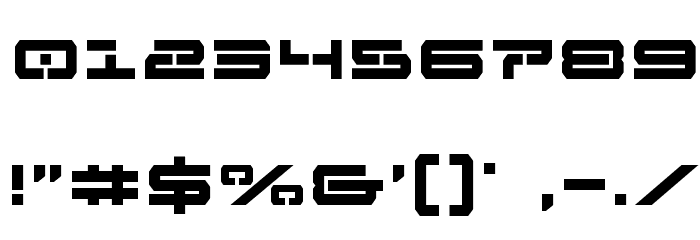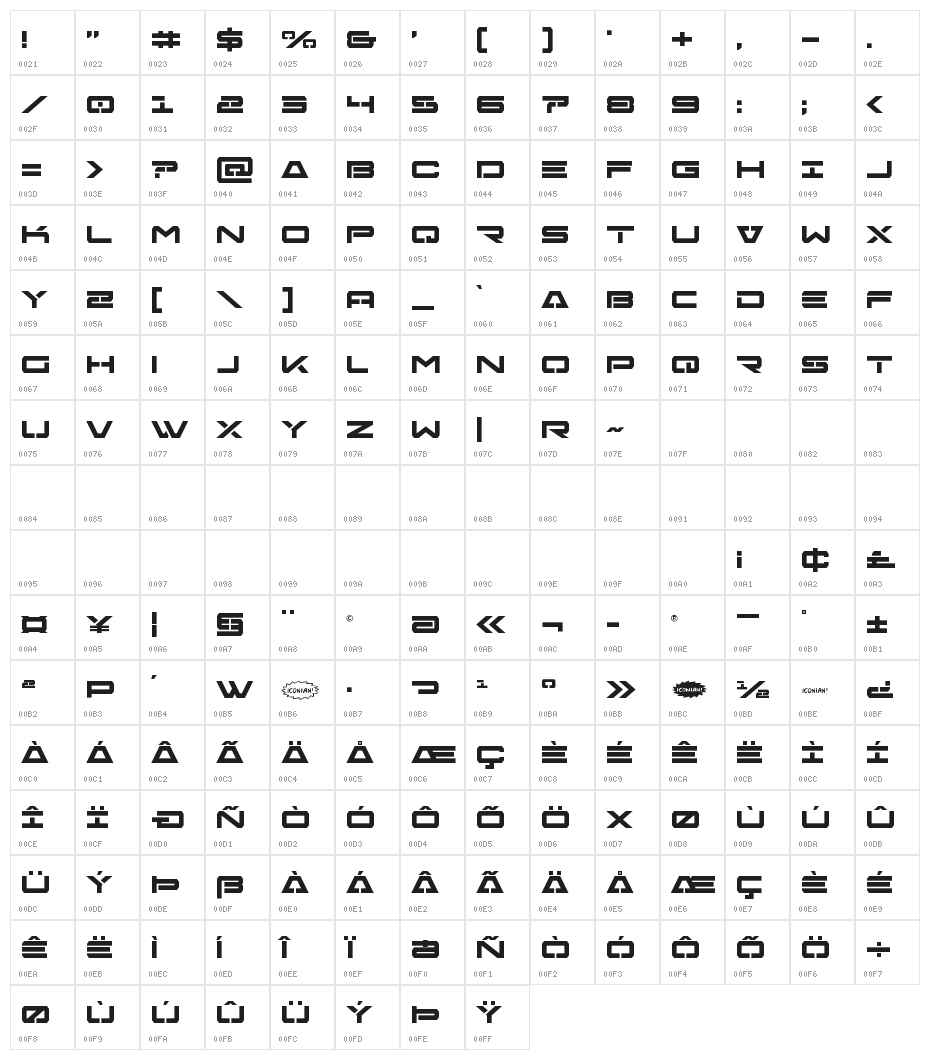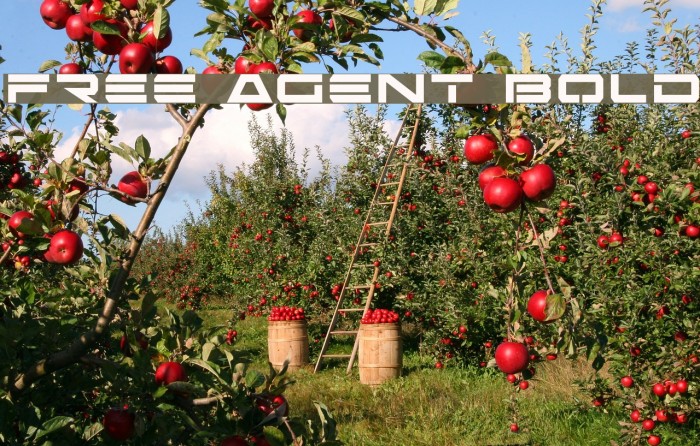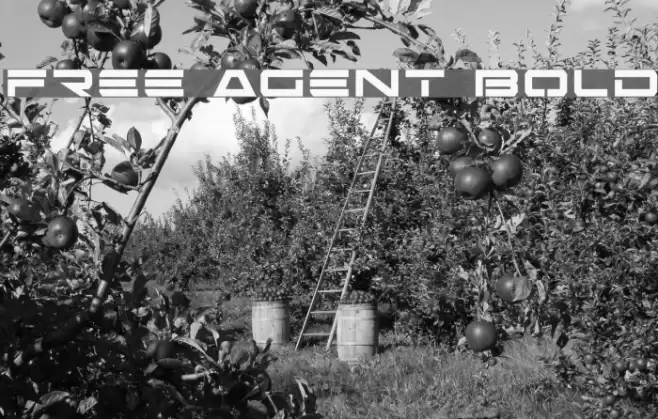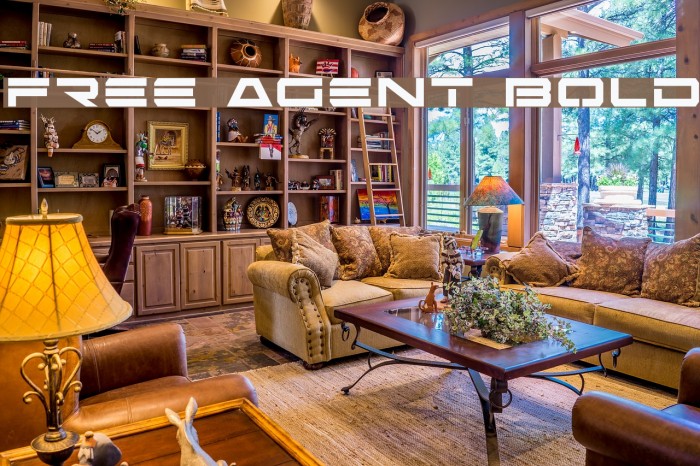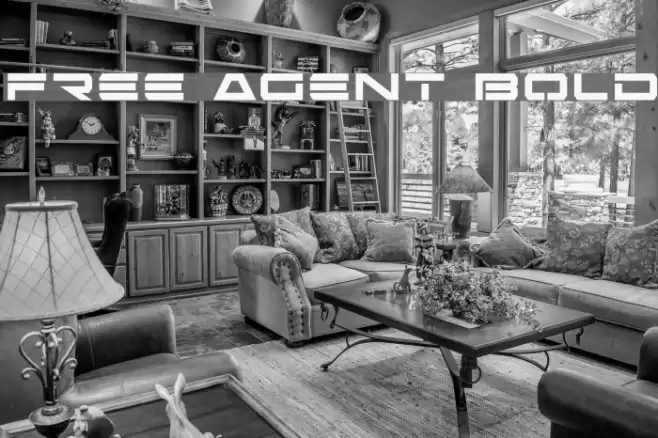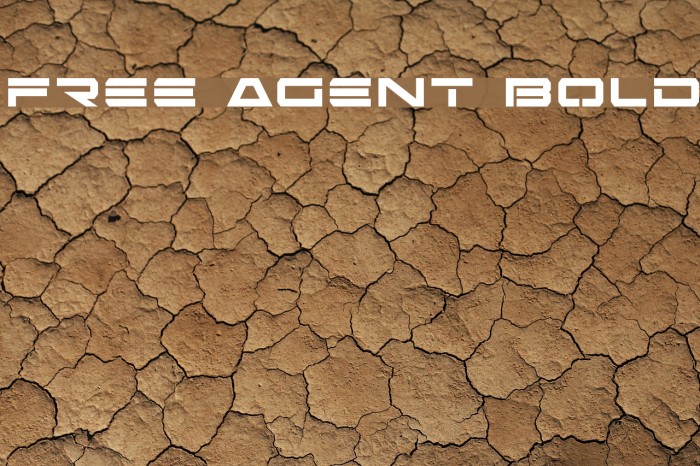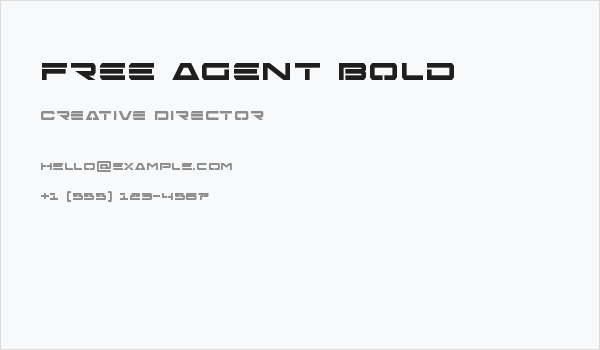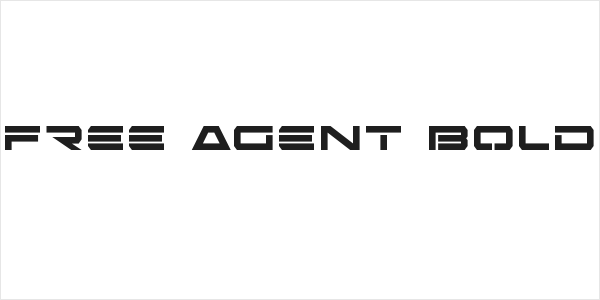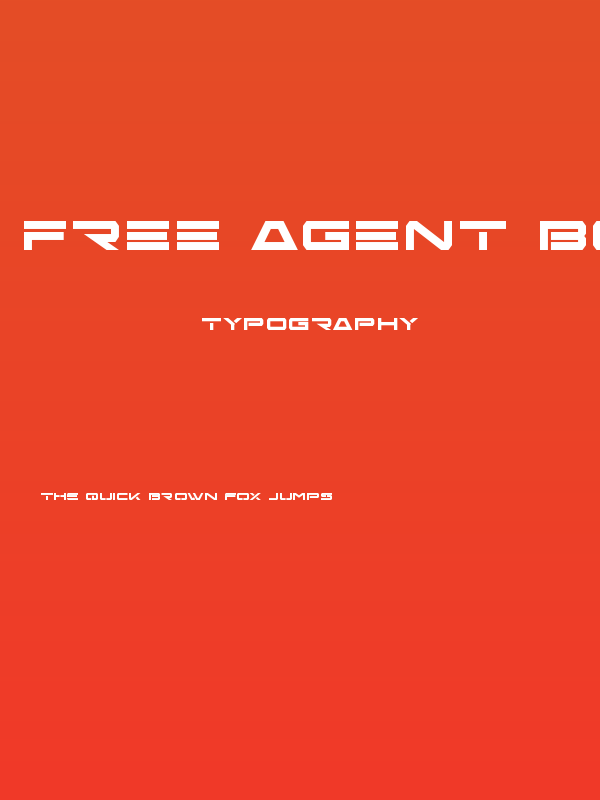
Free Agent Bold Font
Free Agent Bold Description
This font features a bold, futuristic design with geometric elements and sharp angles. The characters are constructed with a combination of straight lines and precise curves, giving it a modern and tech-inspired appearance. The uppercase letters are particularly striking, with a strong presence and a unique style that sets them apart. The numerals and special characters maintain the same boldness and geometric style, ensuring consistency across all elements. This font is ideal for projects that require a contemporary and dynamic look.
| Proposed Projects | Ideal for technology branding, sci-fi themed projects, video game titles, and modern advertising campaigns. |